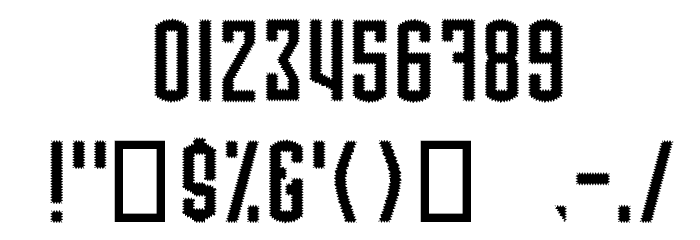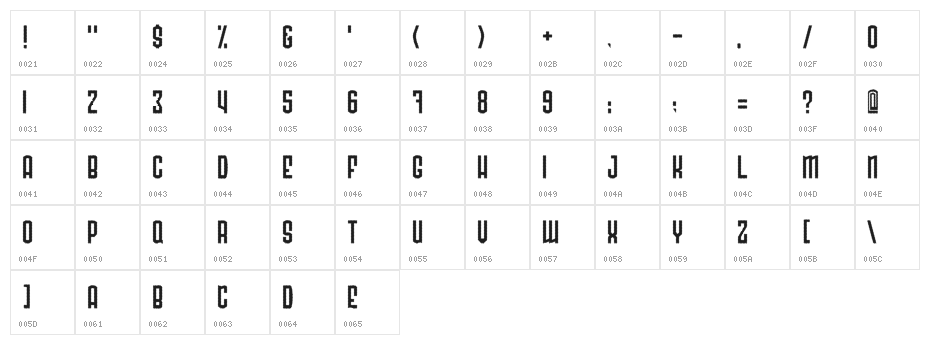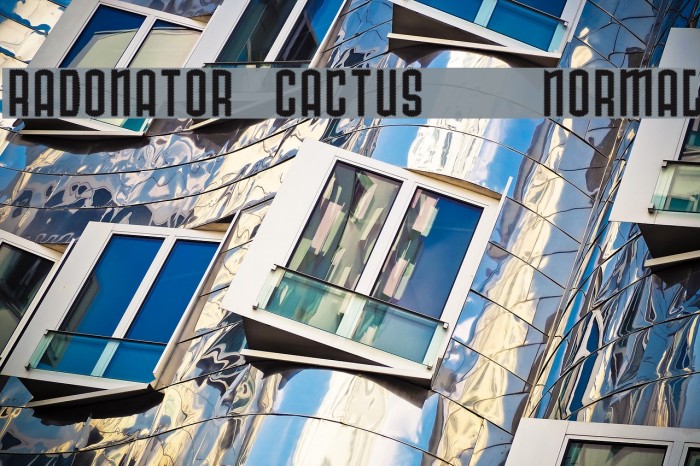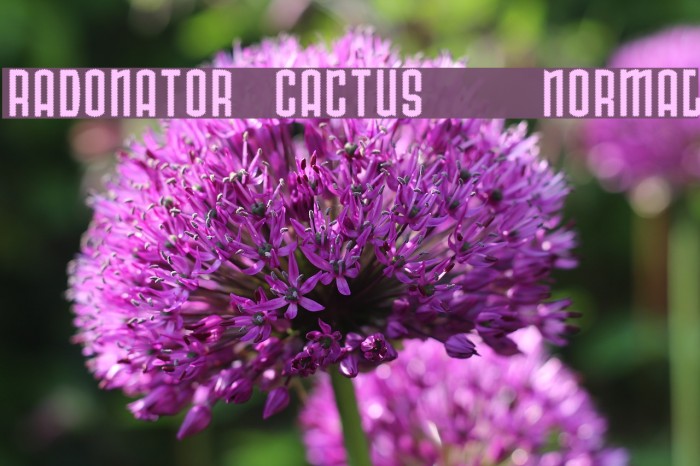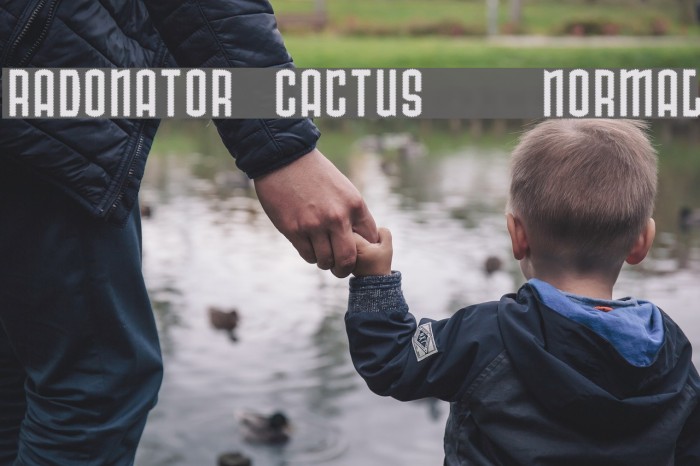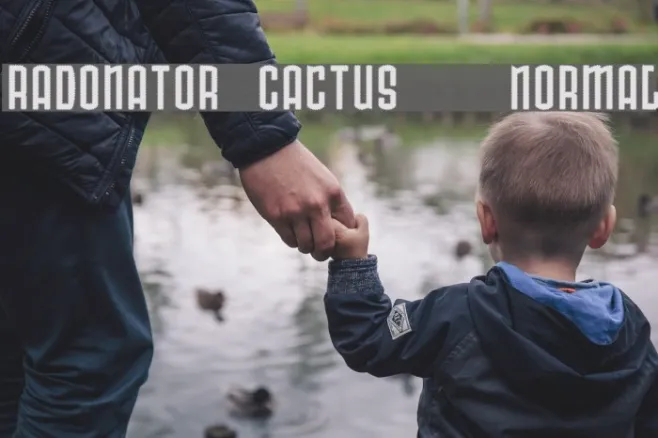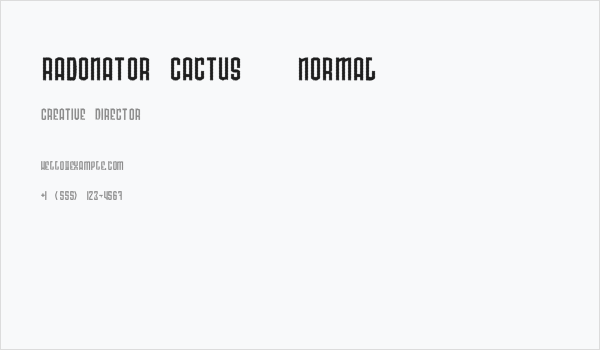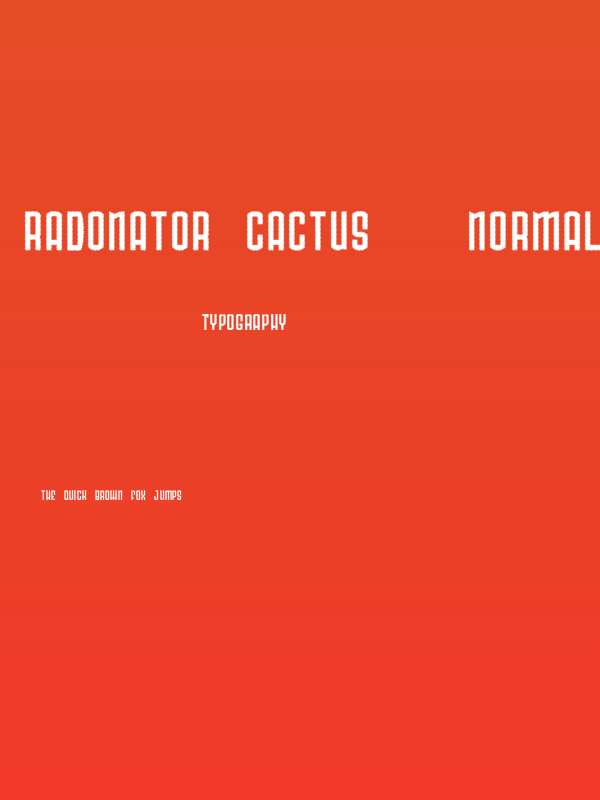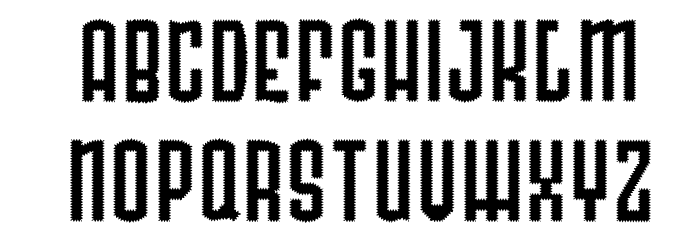
Radonator Cactus Normal Font
Radonator Cactus Normal Description
This font features a unique, edgy design with sharp, spiky edges reminiscent of cactus thorns. The characters are bold and condensed, giving a strong visual impact. The uppercase letters are uniform in height, while the lowercase letters maintain a consistent style. Numbers and special characters follow the same design principles, ensuring a cohesive look. The font's distinct style makes it stand out, suitable for projects that require a bold and unconventional appearance.
Proposed ProjectsIdeal for posters, album covers, branding for edgy or alternative products, and any project needing a standout, unconventional typeface.